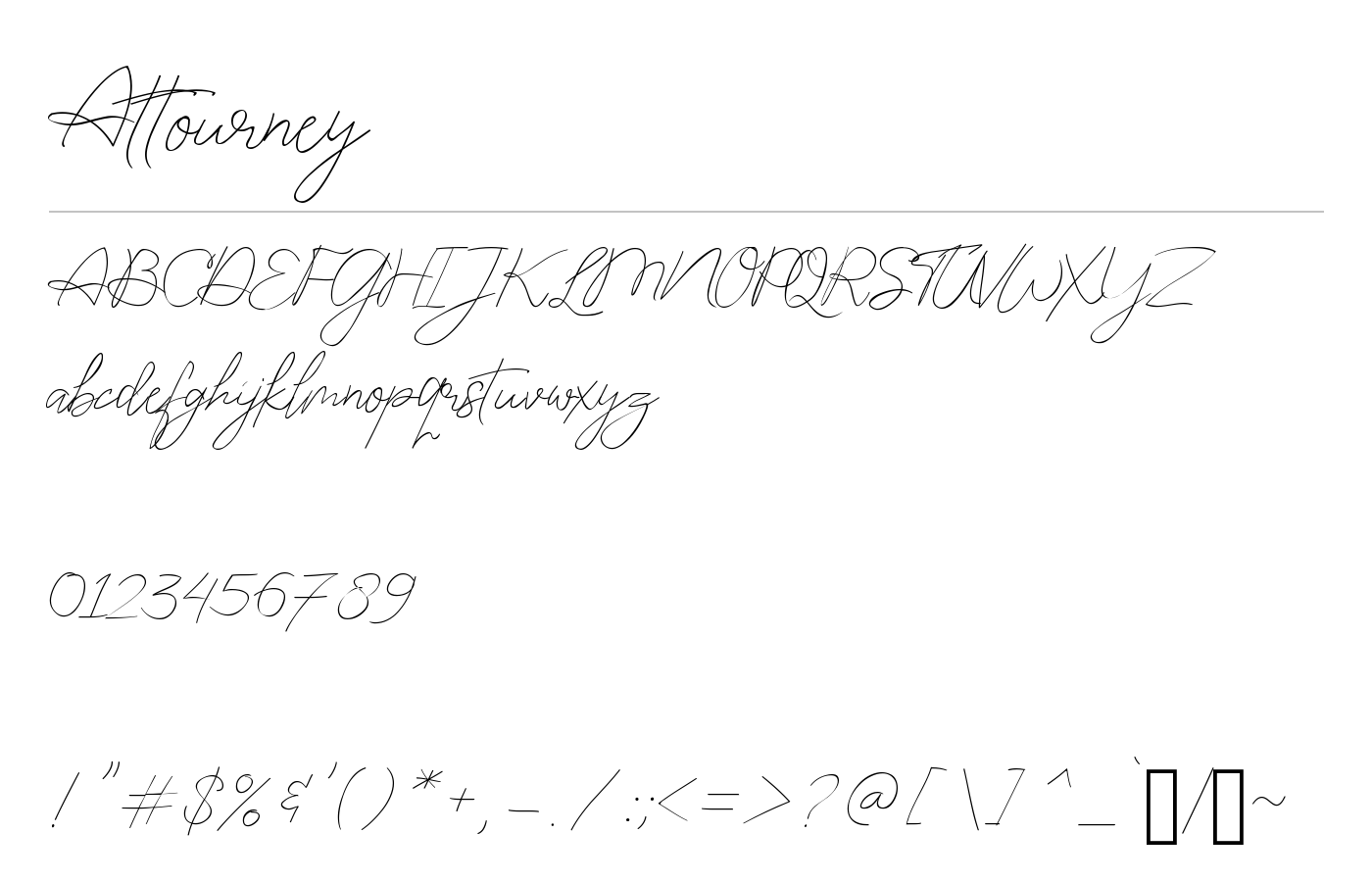
Attourney is an elegant, delicate script font characterized by its thin, flowing lines and graceful, handwritten style. Its light weight and airy, cursive letterforms convey a refined, sophisticated personality, making it ideal for invitations, luxury branding, and artistic projects where a personal, stylish touch is desired. This font works best in display uses like logos and headlines, adding a sense of elegance and charm to any design.
Attourney Font
About Attourney Font